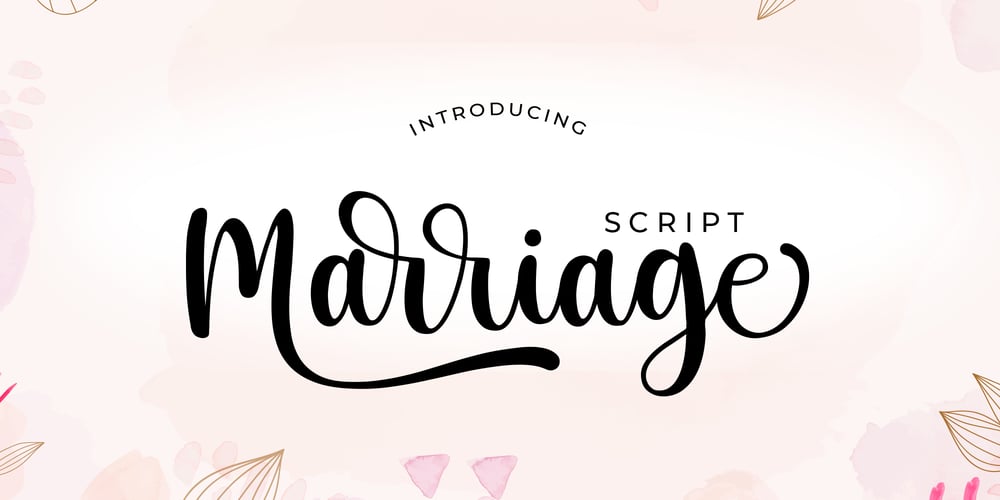
Marriage Script Font Family was designed by Md Anowar Hossain and published by Fokira. Marriage Script contains 1 styles and family package options. Marriage Script – Handwritten Script FontThis font is perfect for svg designs, shirts, crafts, procreate, cricut projects, branding, blogs, logos, invitations and more!Most accent characters included.Enjoy the font, feel free to comment or feedback, send me PM or email.Thank you!